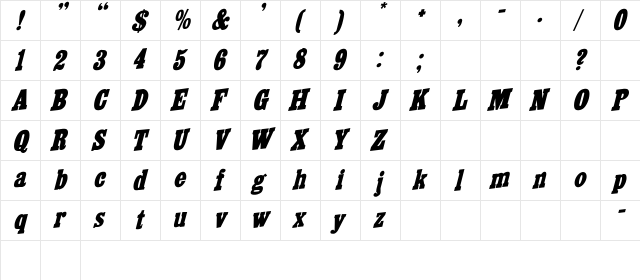
CairoExtendedItalic Italic Font Preview
CairoExtendedItalic Italic
CairoExtendedItalic Italic Font Details
Design Context for CairoExtendedItalic Typeface
CairoExtendedItalic offers clean, dependable letterforms without strong stylistic allegiance, making it a practical choice for designers who need flexibility. The slanted form adds forward momentum and visual energy.
Pro Tip: Use CairoExtendedItalic for emphasis, pull quotes, and subheadings where its slanted energy can add rhythm to the layout.